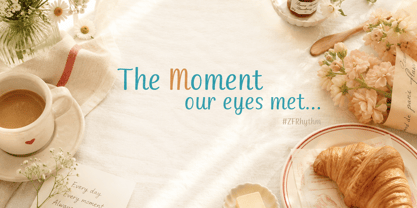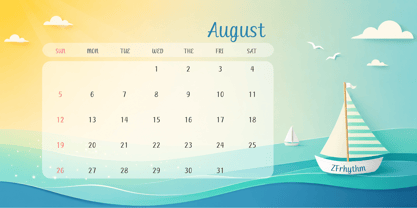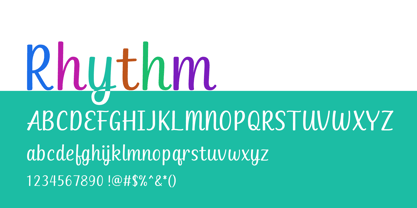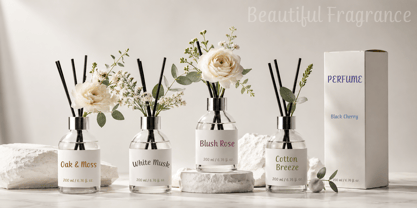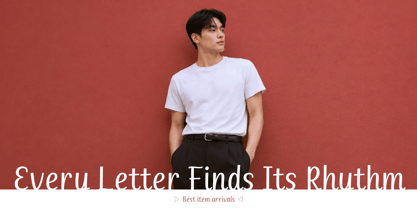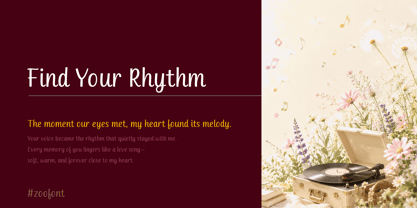
ZFrhythm
The ZFrhythm Font Family was designed by joo-hong Kim and published by ZooFont. ZFrhythm contains 1 styles. More about this family
Rhythm is a delightful handwritten typeface that captures the warmth and ease of natural handwriting. Soft curves, balanced letterforms, and subtle rhythmic movement create a friendly, inviting texture across every word. Designed for excellent readability in both print and digital media, Rhythm is ideal for branding, packaging, stationery, invitations, social media, and creative projects that call for a warm, personal touch.